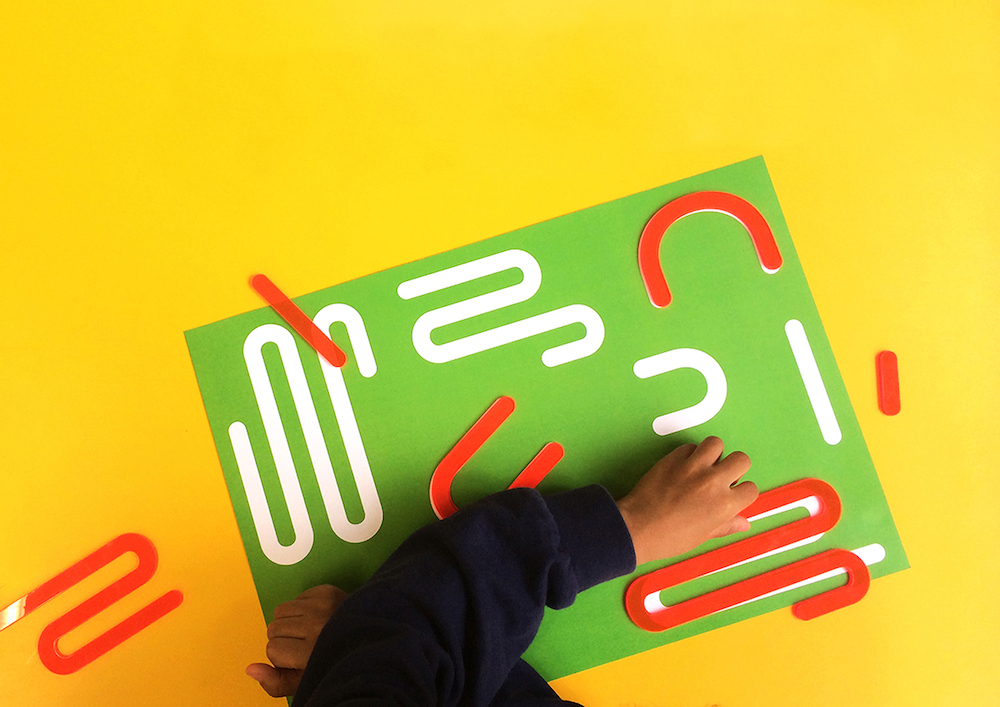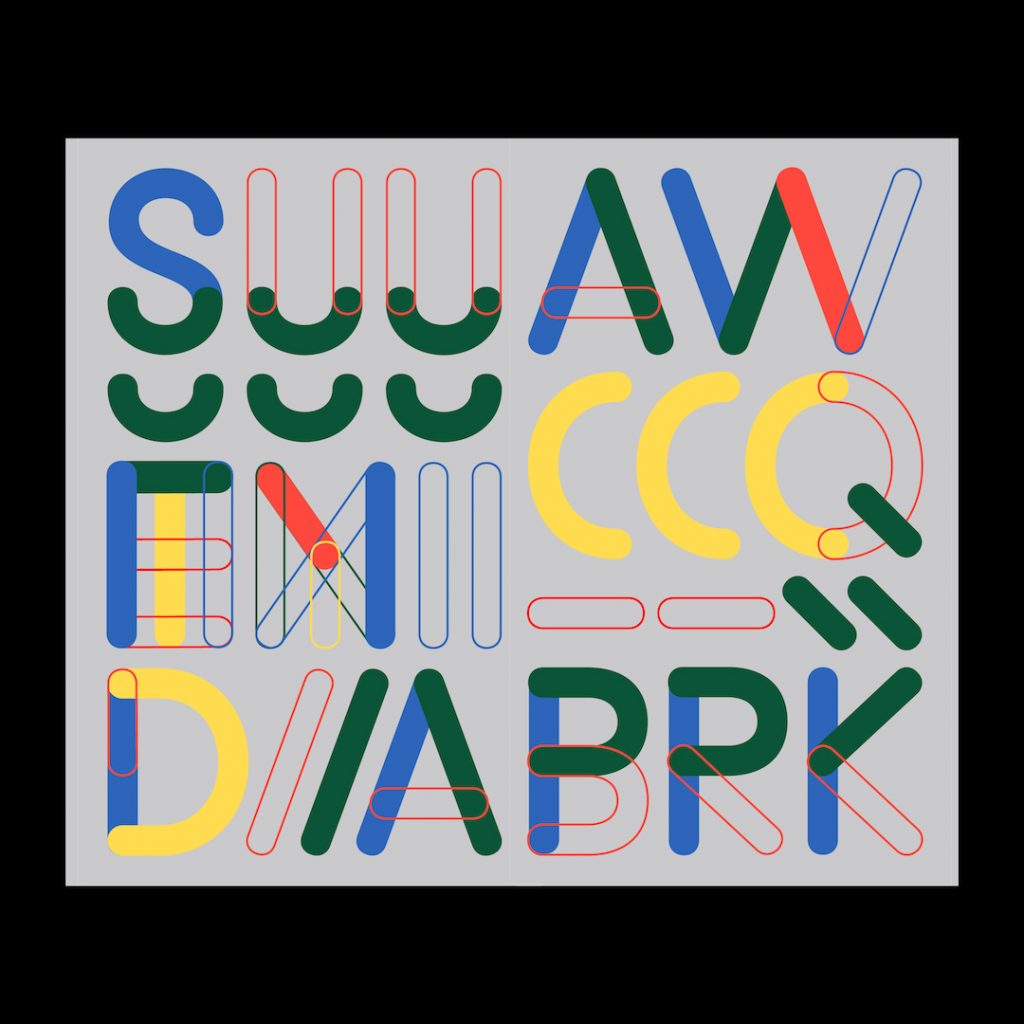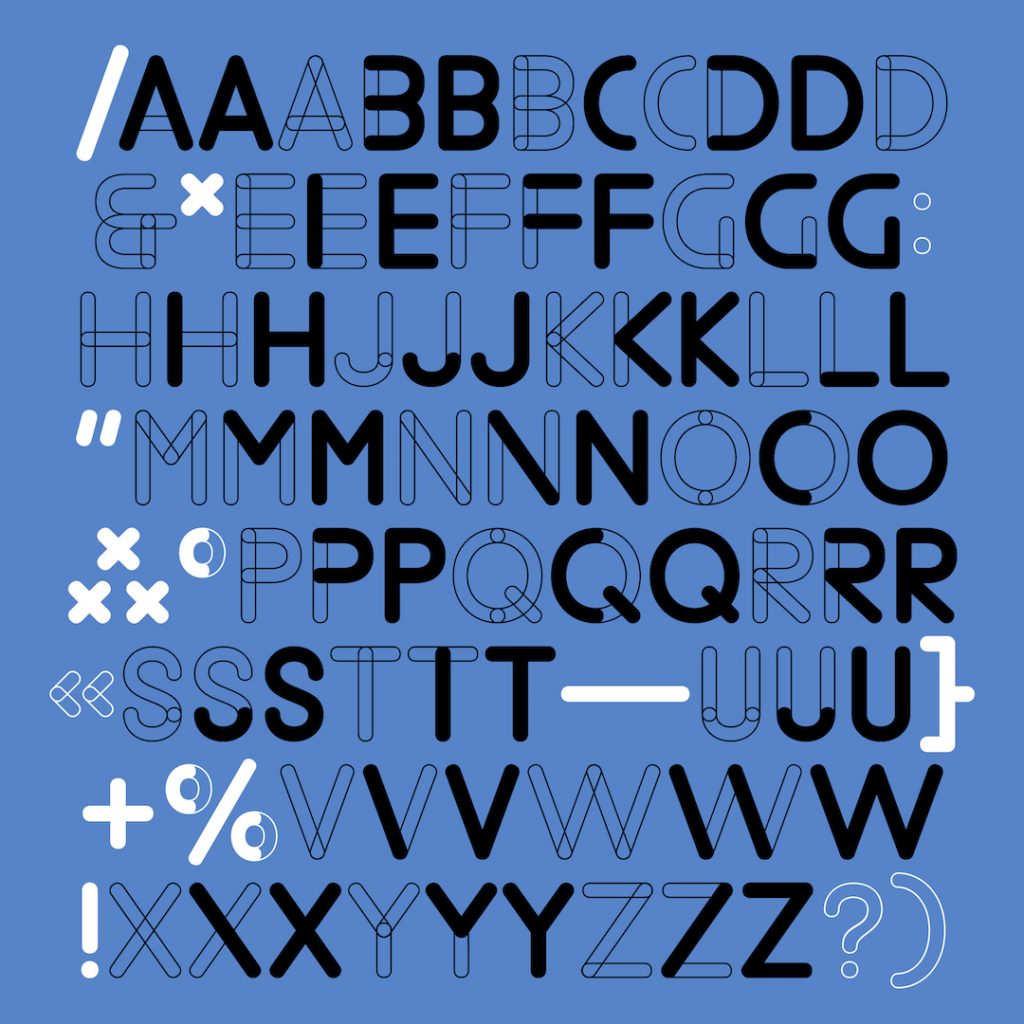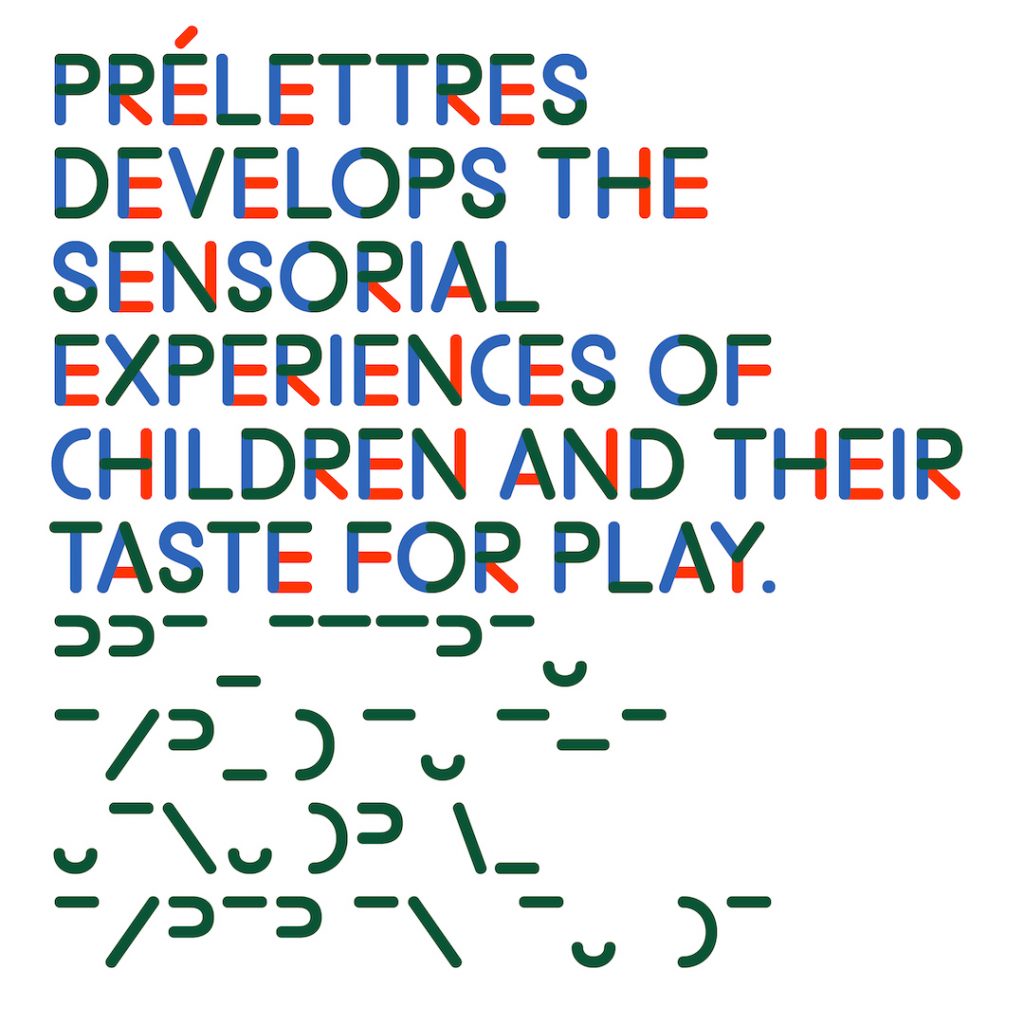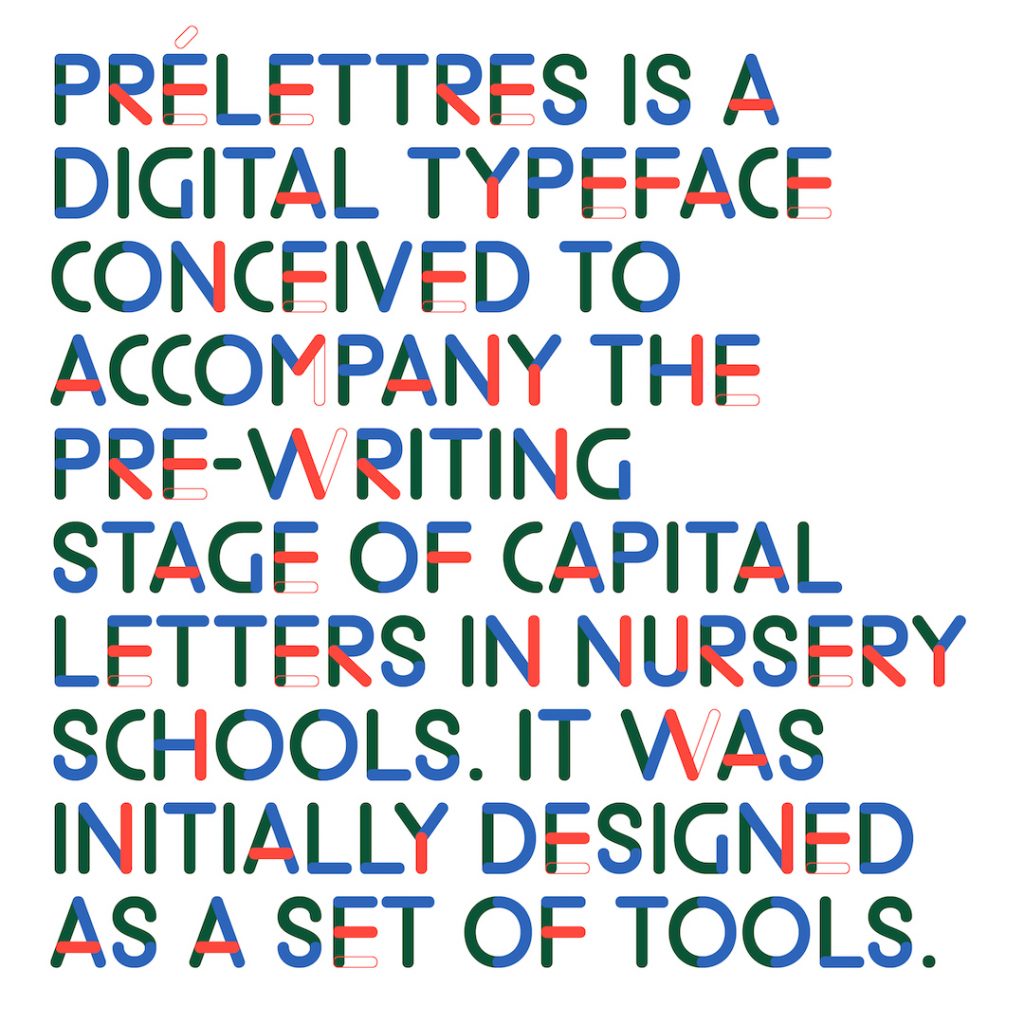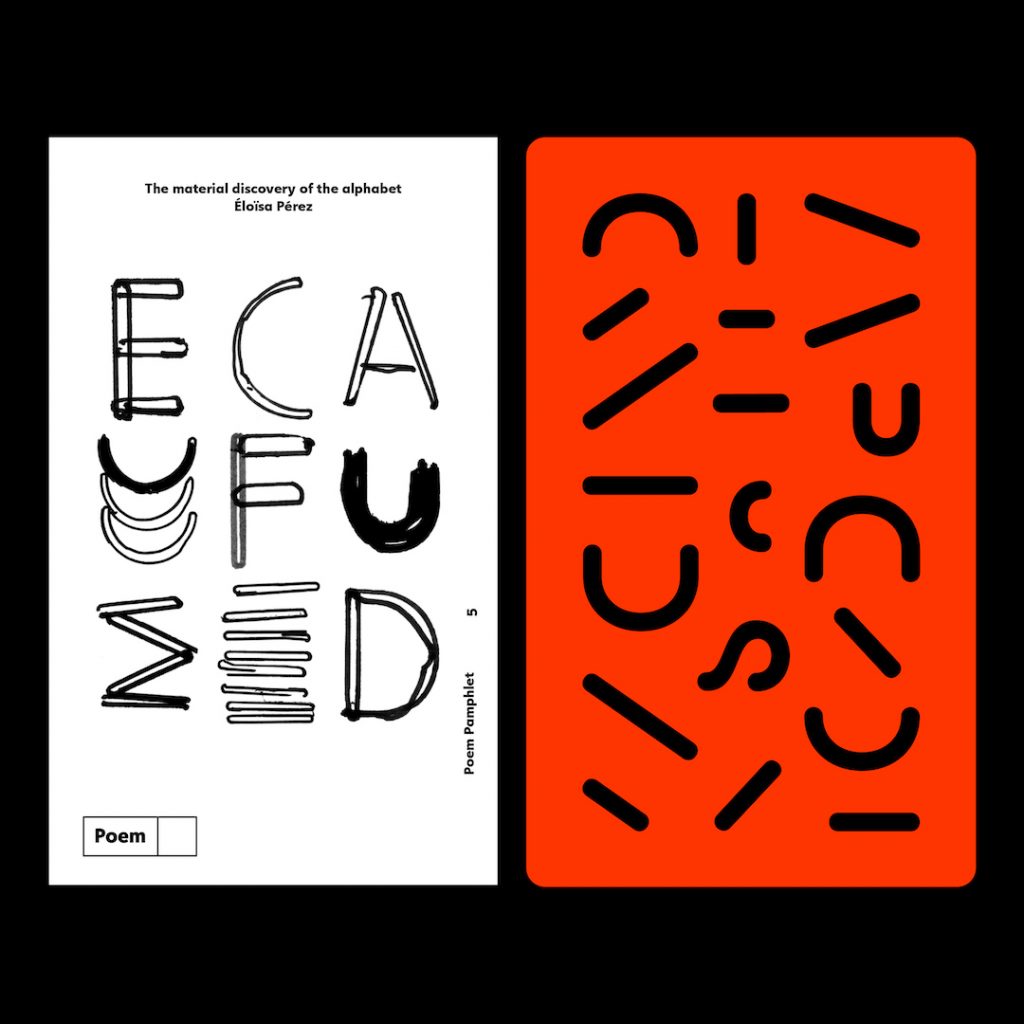
Name: Prélettres
Designer: Éloïsa Pérez
Distributor: Poem
Release Date: November 2021
Back Story: What relationship exists between graphic design and pedagogy? How do certain forms function in the transmission of information? These are some of the questions Éloïsa Pérez has explored over the years while visiting nursery schools and examining how children discover the alphabet, and how they use books. Her research dates back to 2015, with deeper investigations beginning in October 2016 as a Ph.D candidate at Sorbonne Université and Atelier National de Recherche Typographique. There, Pérez has been studying and documenting how youngsters begin to write, at times encouraging them to create with various materials, colors, jigsaw puzzles, and a stencil-like tool called a normograph.
“The challenge was to teach the young child that the letters of the alphabet have common shapes—and that they can build letters by combining basic shapes,” she says, noting the students’ appetite for play, drawing, and experimentation. “The observations that I made and the spontaneous writings of capital letters made by children, which I analyzed, showed me a great variety of forms. I wanted to preserve this variety of forms by designing a tool that guides the writing gesture without constraining it.”
The modularity of the resulting Prélettres typeface not only resembles design elements that the children toyed with, but it also provides a compelling typographic toolkit for graphic designers of any age to play with in their own design and layout activities.
Why’s it called Prélettres? Translating to “pre-letters” but essentially meaning “first letters,” the typeface was created and named in reference to Italian designer Bruno Munari’s 1980s Prelibri (“Pre-books”) for kids. Prélettres harkens back to Munari’s Prelibri in both name and function.
What are its distinguishing characteristics? Poem founder Jérôme Knebusch sums it up best when he says that Prélettres “achieves a balance between a minimum of geometric modules and typographical legibility.” That minimalism factors into its playfulness—and then there’s the friendliness, a result of its rounded terminals. The ability to build each letter piece by piece offers a whimsical, wholly original look and feel.
What should I use it for, and how? Its Plain, Outline, and Mixed styles work well in the classroom as originally intended—tools to teach reading and writing. But grownups who get their hands on Prélettres will find it suited for large-size display text, signage and wayfinding, book titles, and magazine mastheads or section headings.
The fun happens when mixing and building, combining various strokes to create a whole letterform with varying qualities, especially with different colors. Use Prélettres Mixed to craft a feast for the eyes, fills and outlines, still functional, still legible. Don’t settle for somber hues, go with bright primaries or secondaries, or make eyeballs dance around the page with electric neon tones. Gradients? There’s only one answer to that: Yes.
What other fonts should I pair it with? Fun meets formal—pair the friendly Prélettres with the distinguished Mrs Eaves by Zuzana Licko. Or for a techno and technical look that’s reader-friendly, partner Prélettres with Adelle Mono Flex by Irene Vlachou, José Scaglione, and Veronika Burian. The more you toy with it, the sooner you’ll discover that Prélettres plays nicely with most every font—and, naturally, is well-suited for readers of all ages.